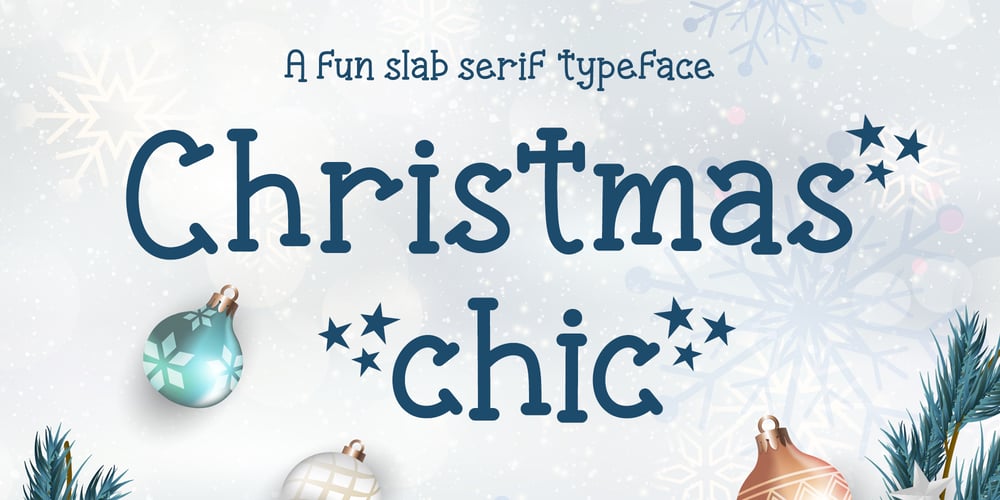
Christmas Chic Font Family was designed by Agung Eko Nugroho and published by AEN Creative Studio. Christmas Chic contains 2 styles and family package options. Christmas Chic is a joyful, festive, and fun slab serif font. It is ideal for Holiday-themed greeting cards and for any crafting project. This font is PUA encoded which means you can access all of the glyphs and swashes with ease!